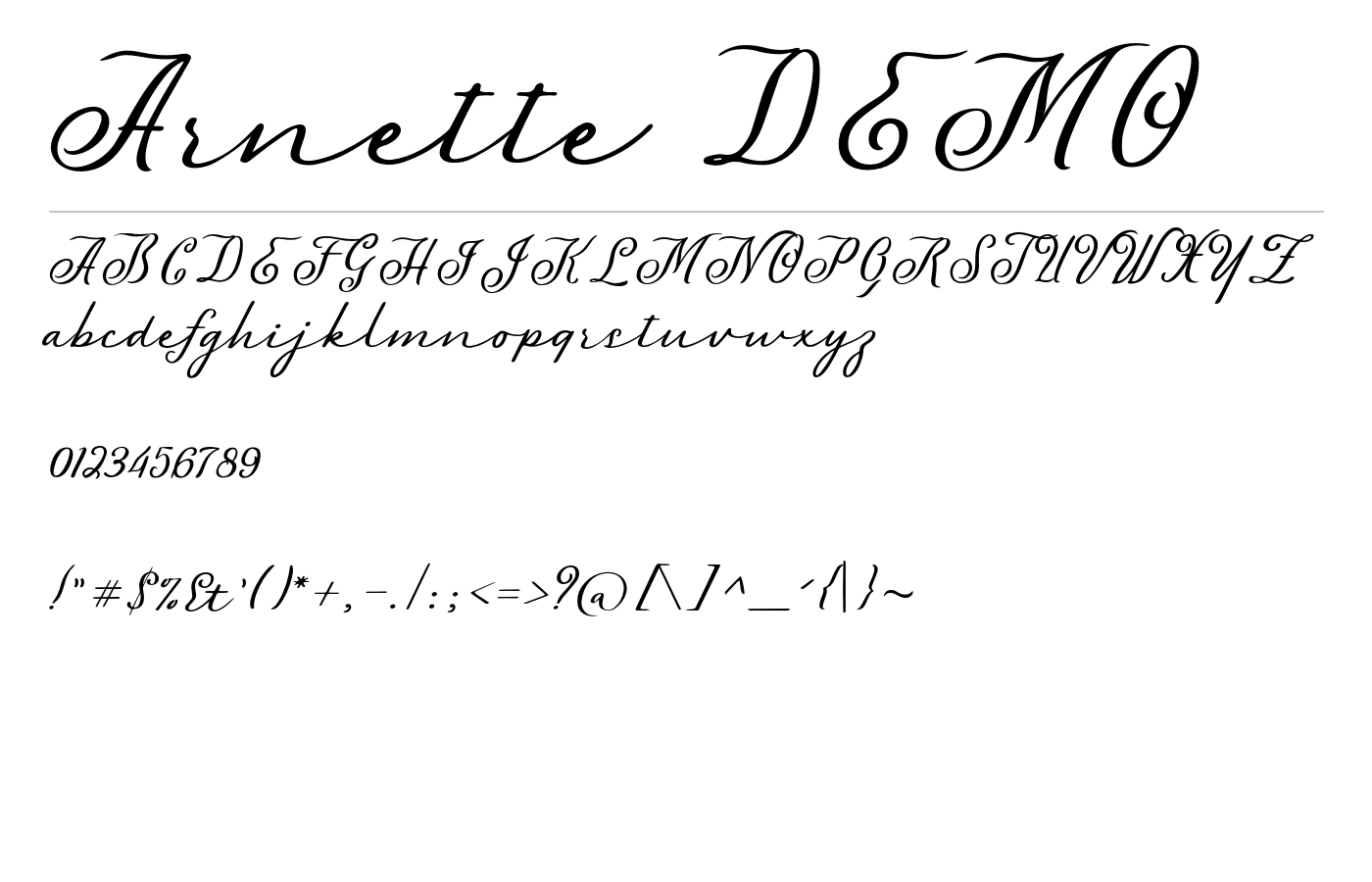
Arnette DEMO is an elegant script font with delicate, flowing strokes that mimic classic handwriting. Its light weight and graceful curves give it a refined, sophisticated feel, making it ideal for invitations, branding, and projects that require a touch of timeless beauty and charm. This font works especially well in designs that seek a personal, artistic touch without sacrificing readability.
Arnette DEMO Font
About Arnette DEMO Font
| Font family | Arnette DEMO Font |